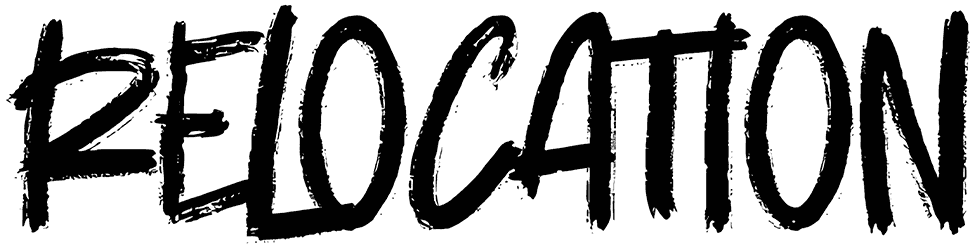
Candy Inc Font
Say hello to a cursive font and create a masterpiece layout. Candy Inc can be used for logos, headlines, business cards, and so forth. The letters sound sketchy in this font. Don’t waste your time and test it out as soon as possible. By the way, you can find more fonts on our website, take a look at them.